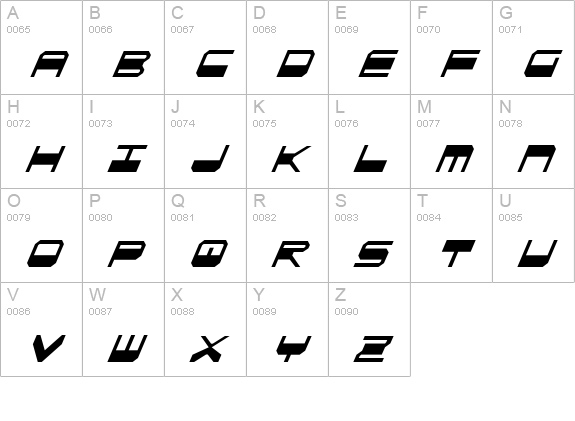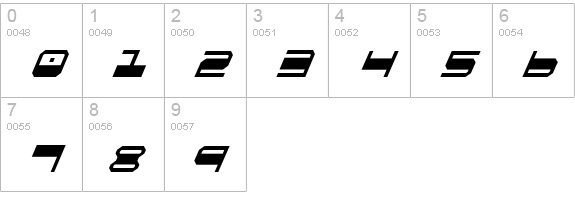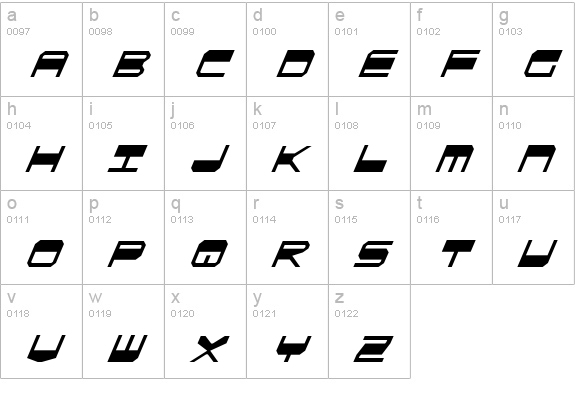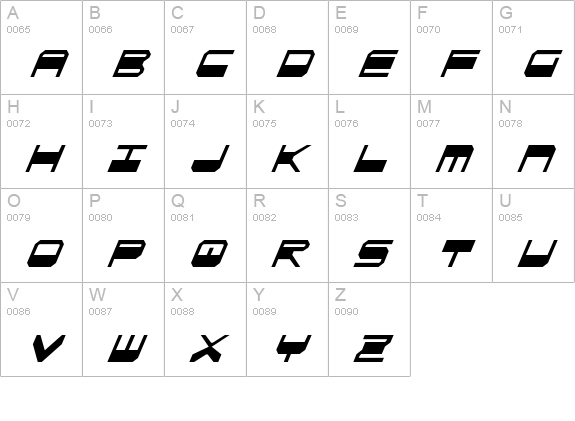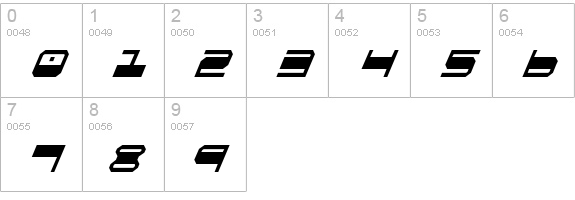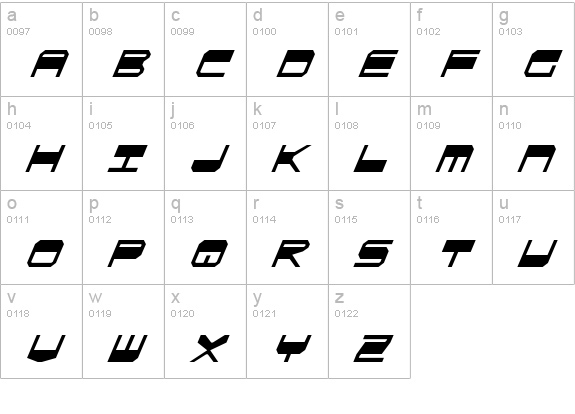
QuickGear Condensed Italic is a distinctive, condensed-width, italic variant in the QuickGear typeface family \xE2\x80\x94 well suited to design and typography projects.
Introducing QuickGear Condensed Italic, a sleek and modern font designed to add a touch of sophistication to any design project. This elegant typeface strikes the perfect balance between professionalism and creativity, making it an ideal choice for both personal and commercial use. With its condensed and italicized letterforms, QuickGear Condensed Italic exudes a sense of sleekness and efficiency. The slightly slanted angle adds a subtle dynamism to the overall appearance, making this font perfect for conveying a sense of forward motion and progress. The versatility of QuickGear Condensed Italic is truly remarkable. Whether you're designing a logo, creating eye-catching headlines, or crafting elegant invitations, this font will effortlessly elevate your design to new heights. Its clean and crisp lines ensure legibility at any size, while its condensed nature allows for efficient use of space without compromising on visual impact. But what truly sets QuickGear Condensed Italic apart is its accessibility. We believe that creativity should be free and readily available to all, which is why we are delighted to offer this font as a free download exclusively on FontsMarket.com. Now, you can enjoy the benefits of this exceptional font without any restraints, allowing your imagination to soar without the burden of cost. So, don't miss this incredible opportunity to enhance your designs with QuickGear Condensed Italic. With its sleek and modern aesthetic, its versatility across various design projects, and its availability as a free download on FontsMarket.com, this font is a must-have for any designer or creative enthusiast. Experience the power of QuickGear Condensed Italic and unlock a new level of design excellence today.